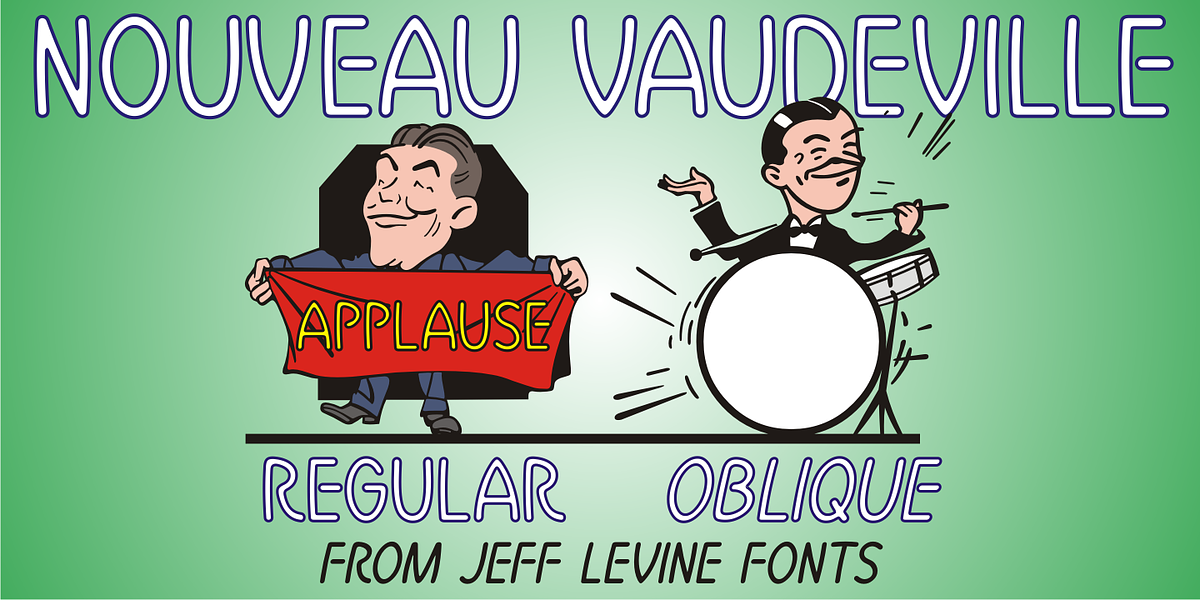
Nouveau Vaudeville JNL
On the cover of the 1926 sheet music for “There Ain’t No Maybe in My Baby’s Eyes”, the title is rendered in Art Nouveau hand lettering; pen-drawn with rounded ends.
The type design is now available as Nouveau Vaudeville JNL, in both regular and oblique versions.